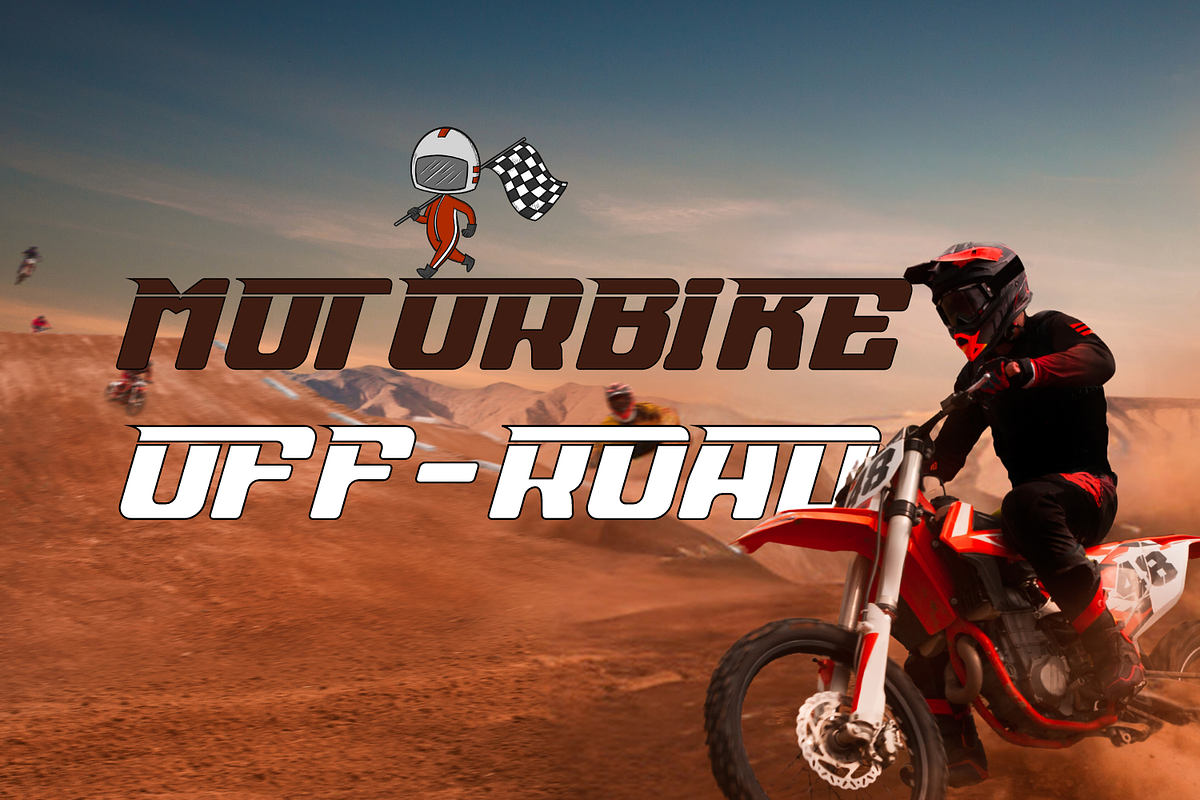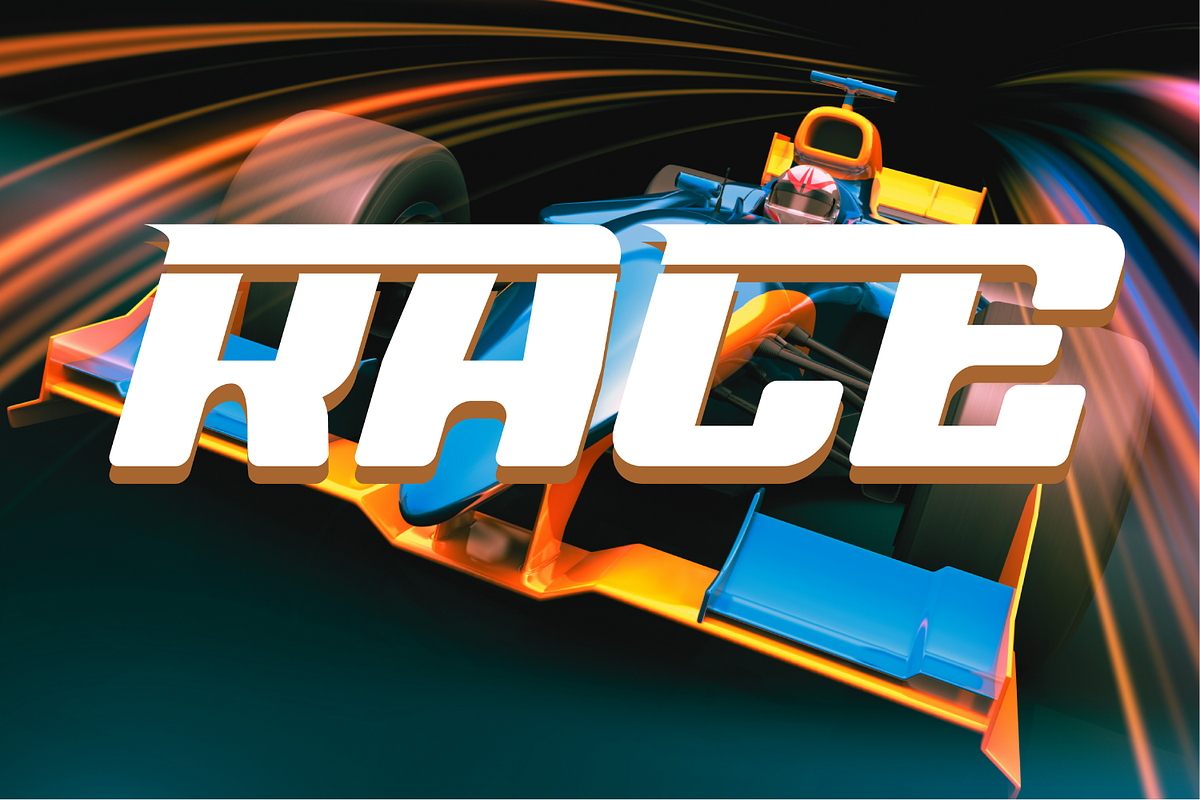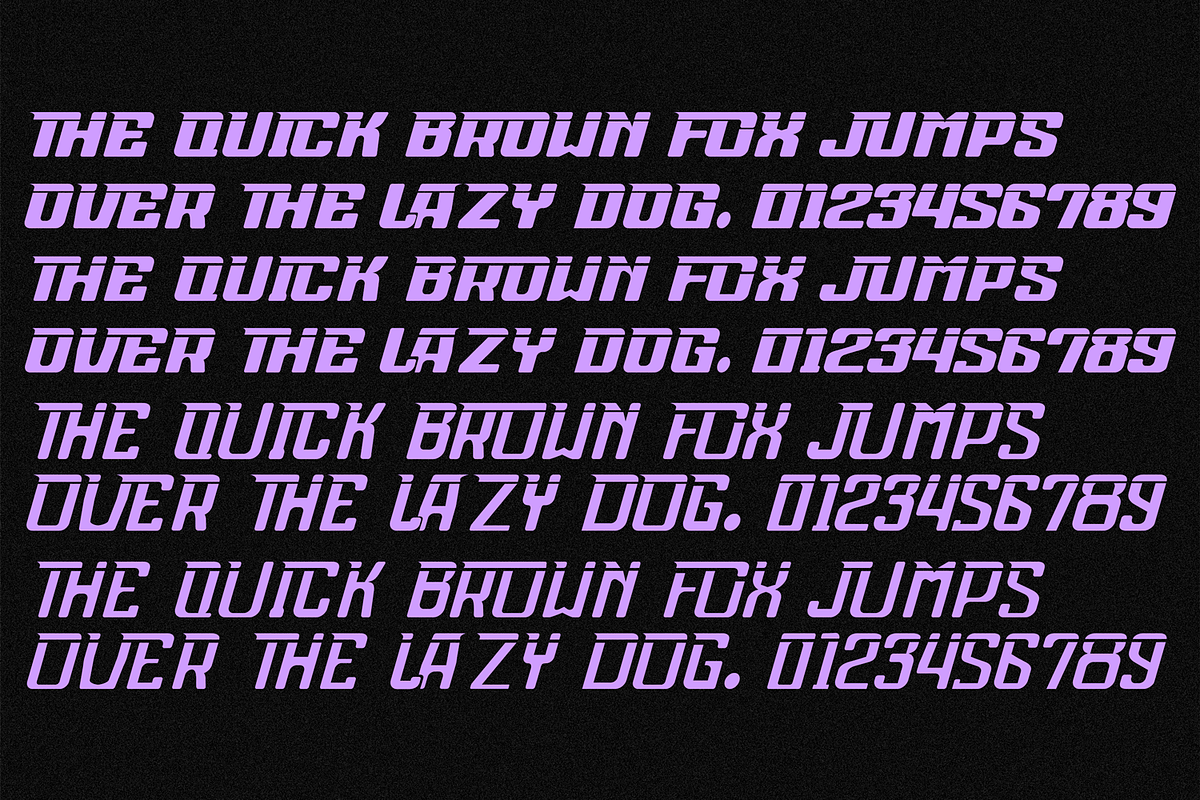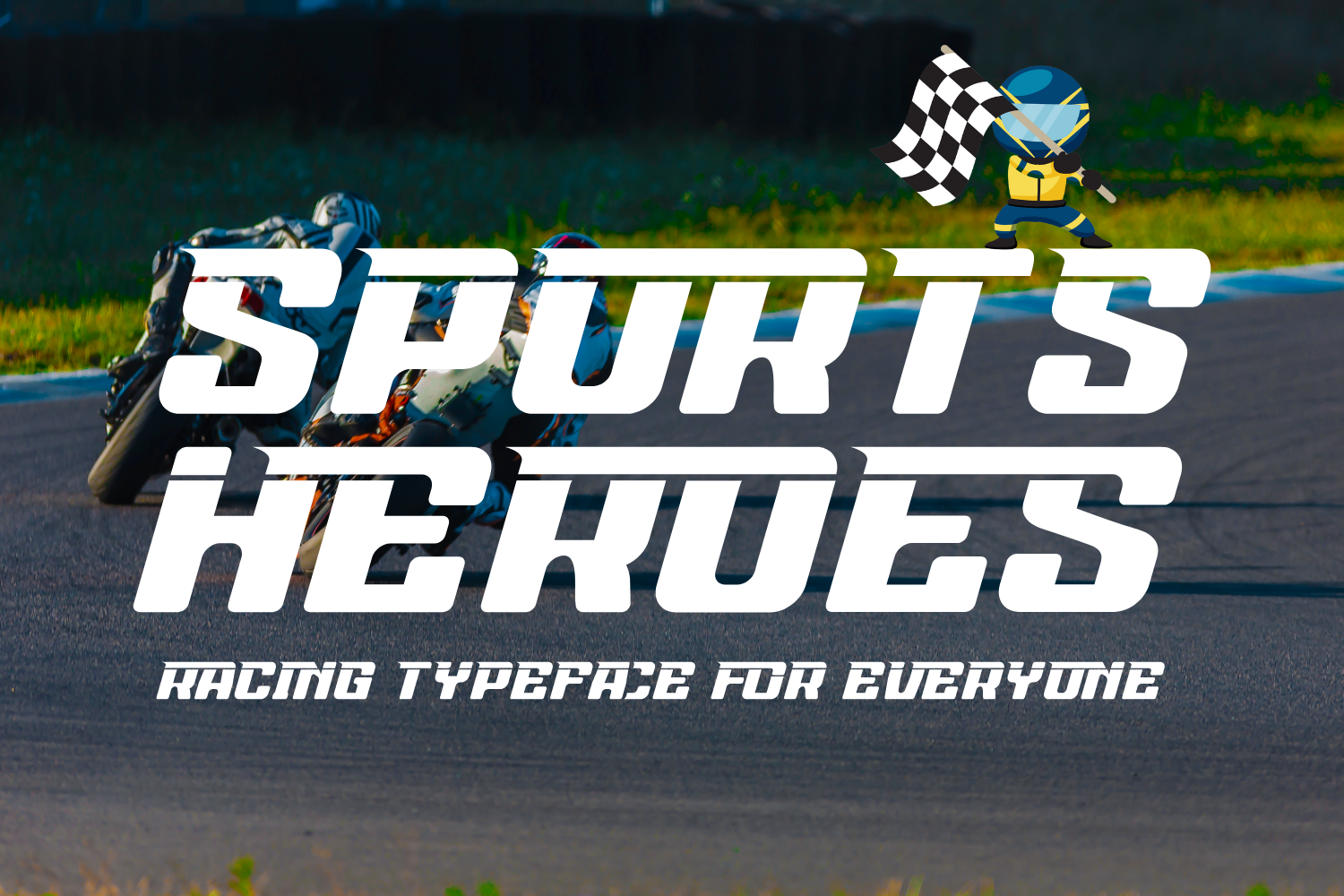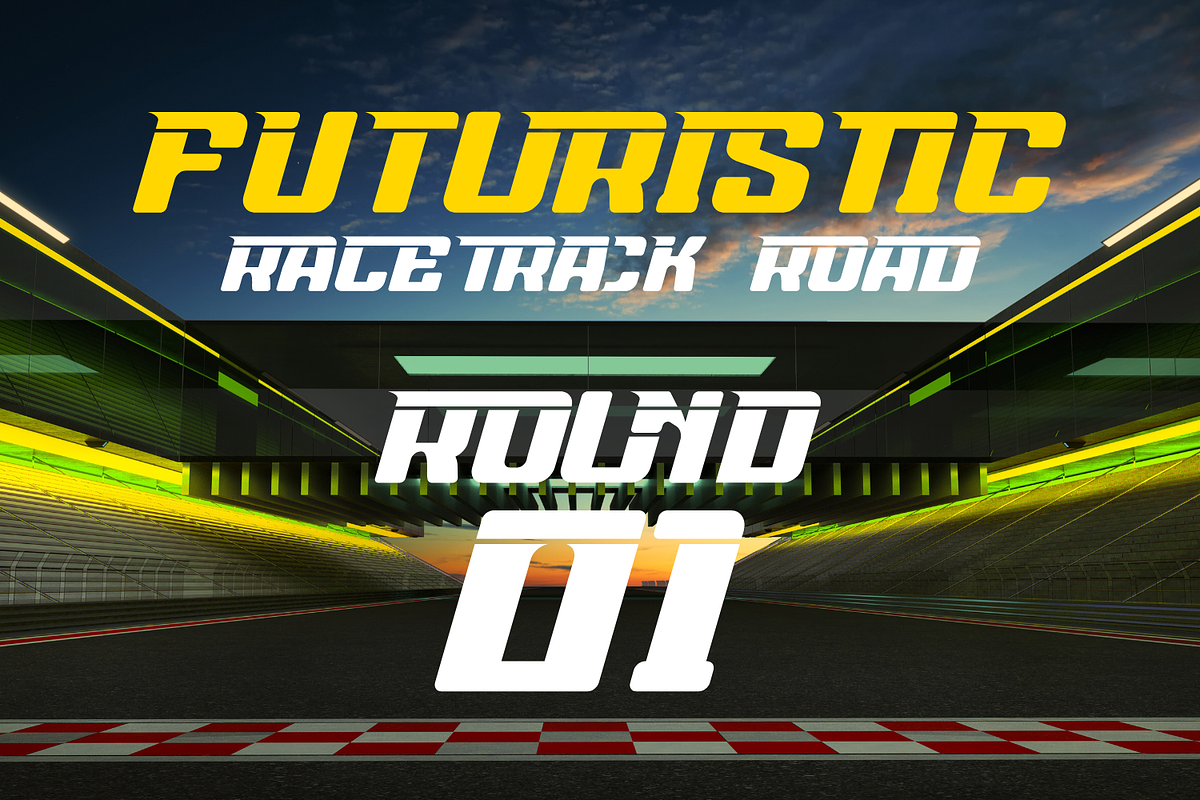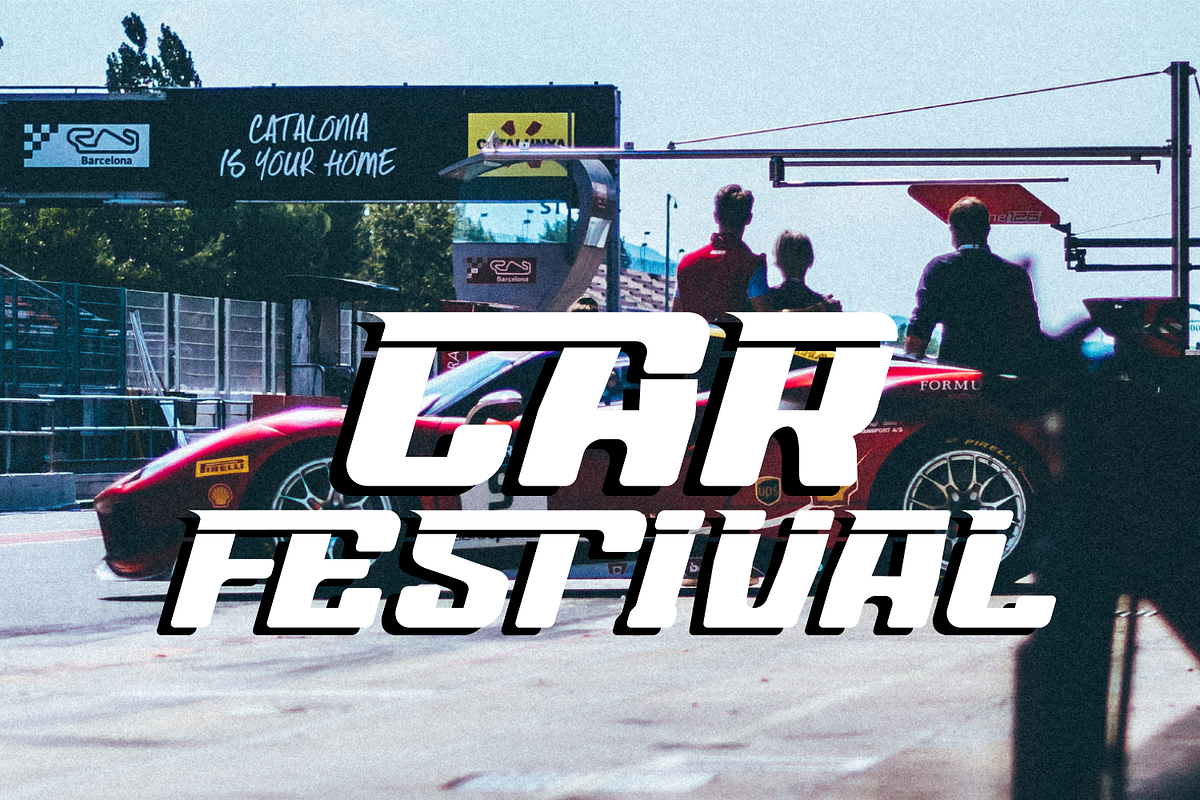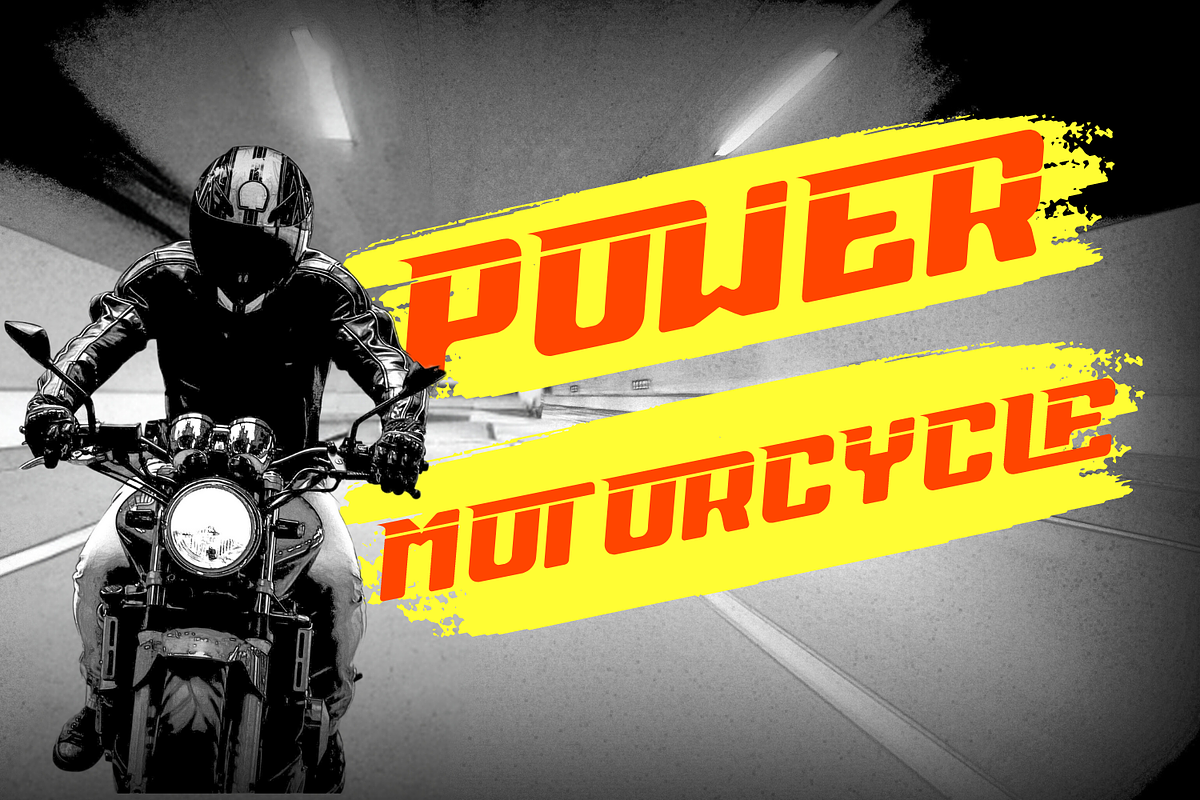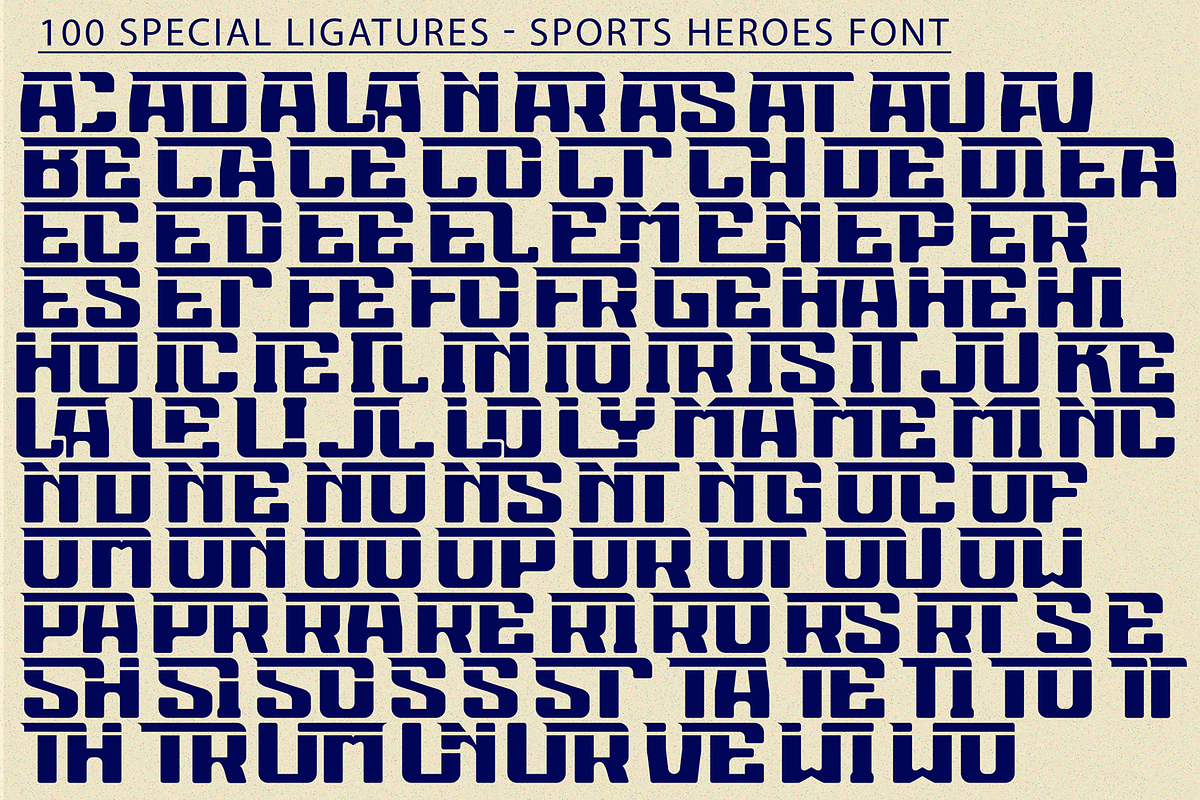
Sports Heroes Font
Sports Heroes Font is a fresh sports font, cool sports font with wide italics, coming all-caps with modern letter cuts and dynamic slant. Suitable for movie, documenter, film, logo, poster, game, book cover, headlines, title and many more projects. Add this font to your creative ideas and notice how it will make them stand out!
Sports Heroes was built with OpenType features and includes 100 ligatures, alternate, numbers, punctuation, and it also supports other languages.
AC AD AL AN AR AS AT AU AV BE CA CE CH CO CT DE DI EA EC ED EE EL EM EN EP ER ES ET FE FO FR GE HA HE HI HO IE IC IL IN IO IR IS IT JU KE LA LE LI LL LO LY MA ME MI NC ND NE NG NO NT NS OC OF OM ON OO OP OR OT OU OW PA PR RA RD RE RI RO RS RT SE SH SI SO SS ST TA TE TH TI TO TR TT UM UN UR VE WI WO
This font also included full set of:
- Uppercase letters
- Special Ligatures